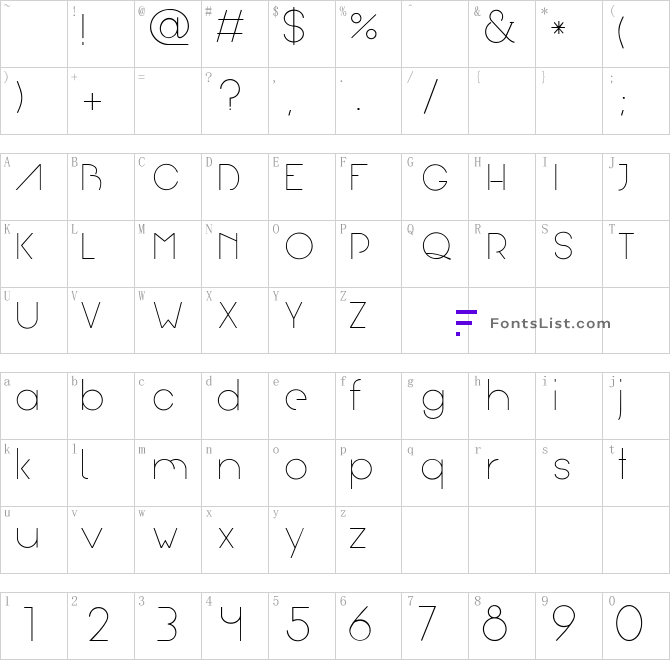
- Font Name:Arual
ArualLight.ttf is a very beautiful artistic font, ArualLight.ttf is widely used in the design and printing of various books and pictures,ArualLight.ttf has a strong visual impact,ArualLight.ttf is a commonly used font in newspapers, magazines and books, and is used in posters, e-commerce Poster design, store design, logo design, font design and other fields.ArualLight.